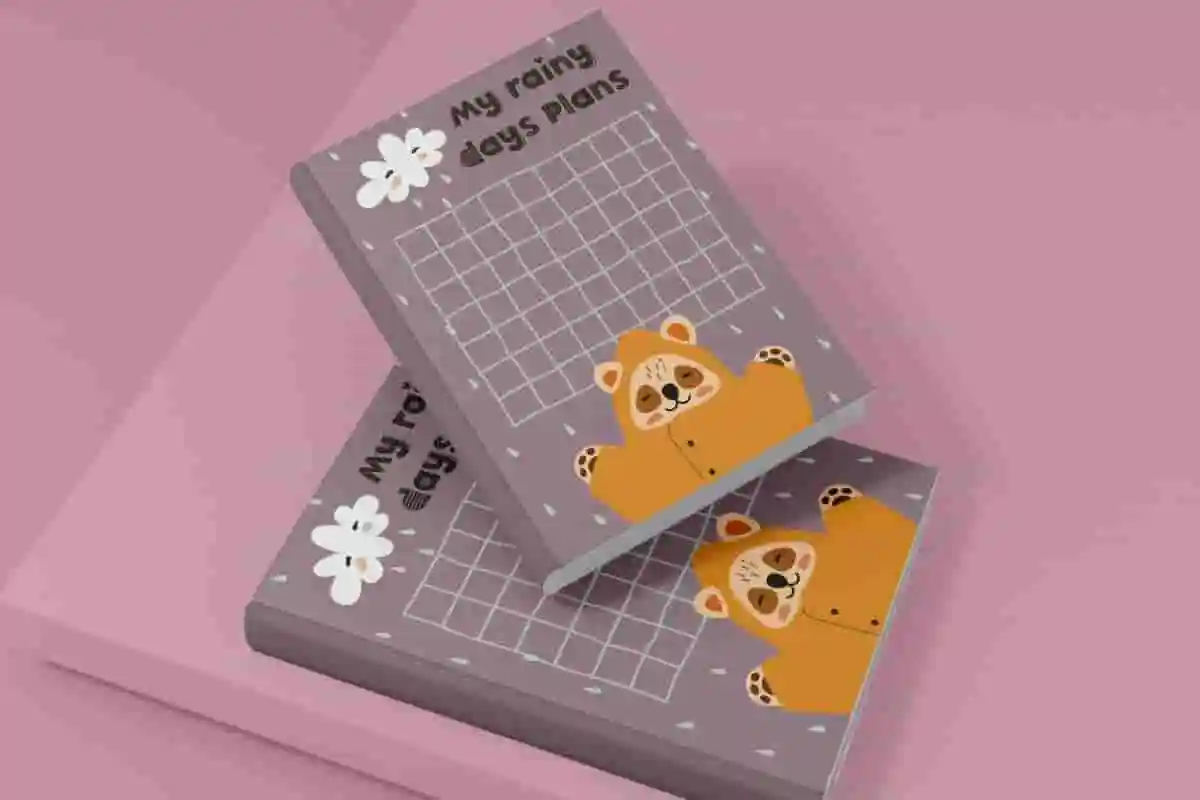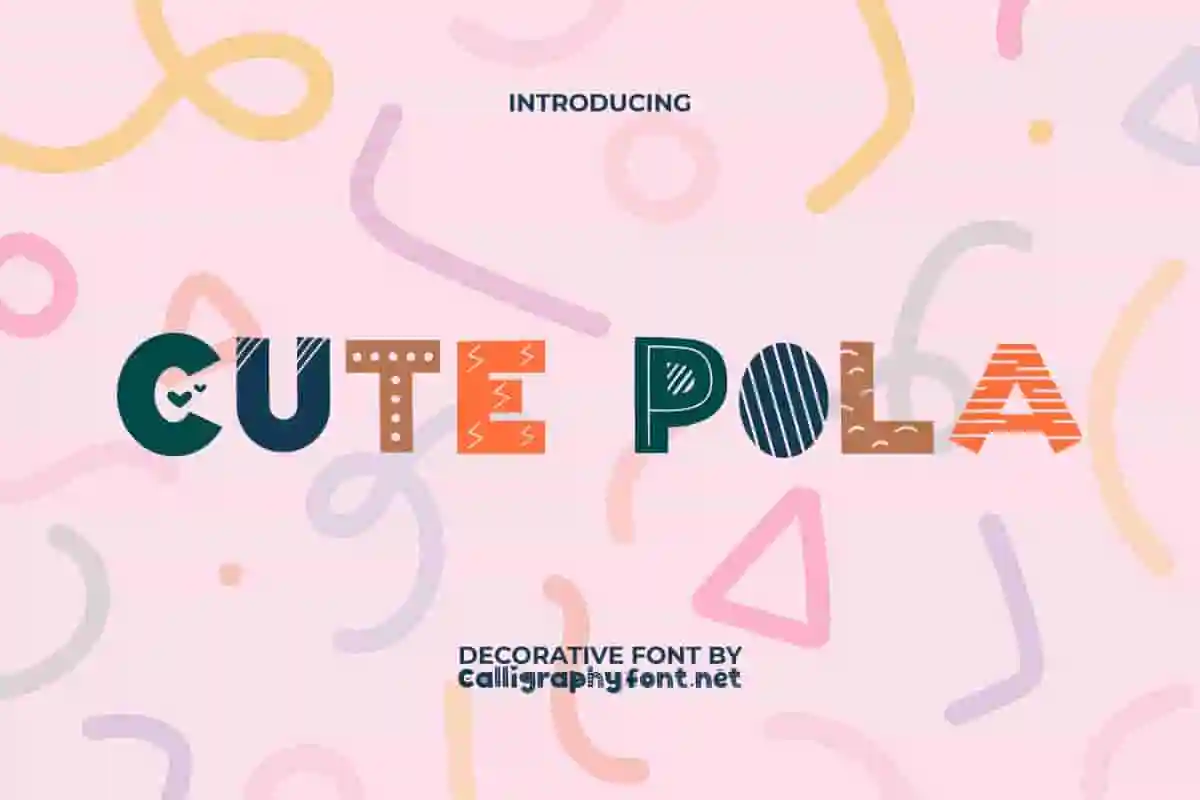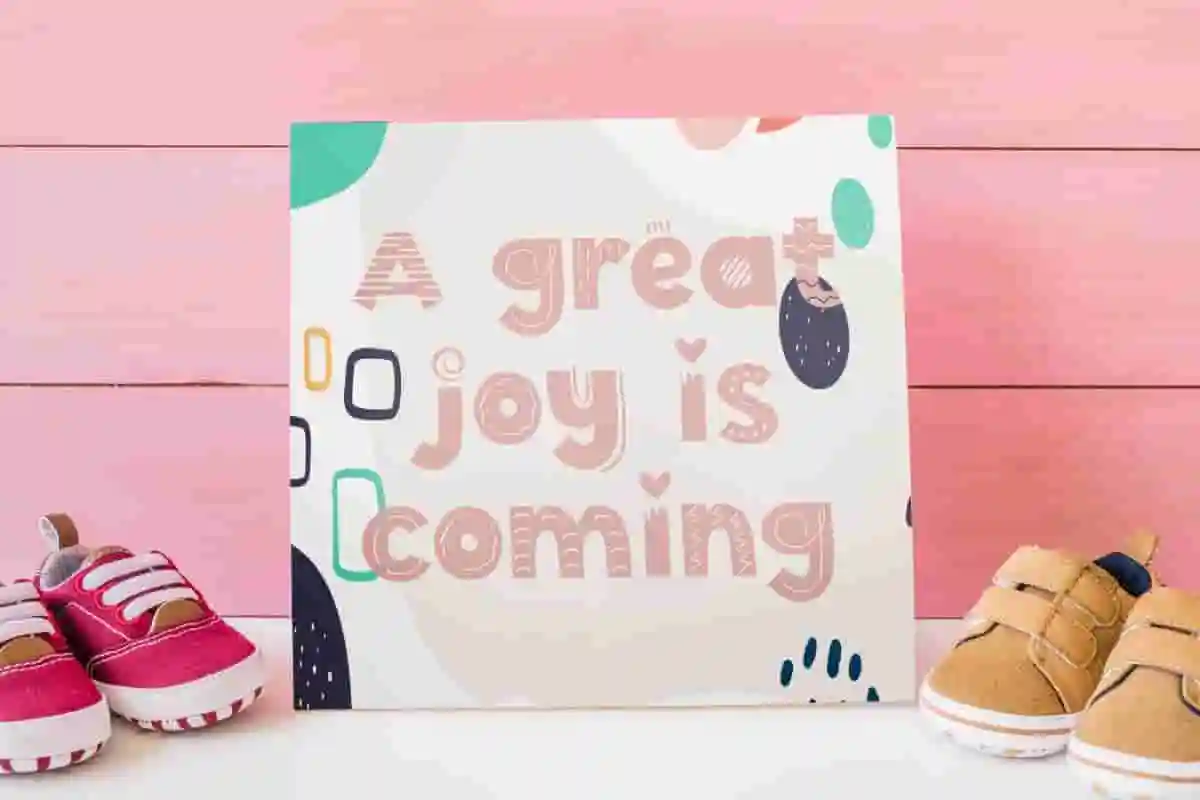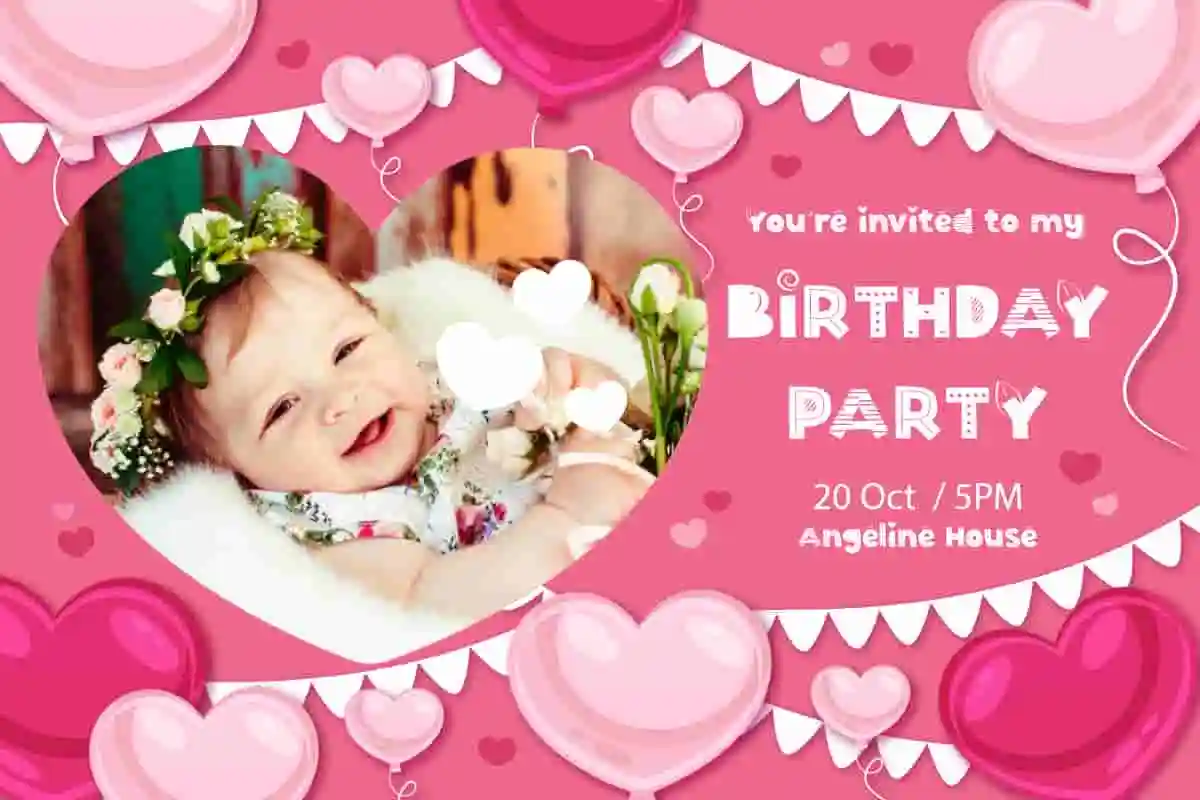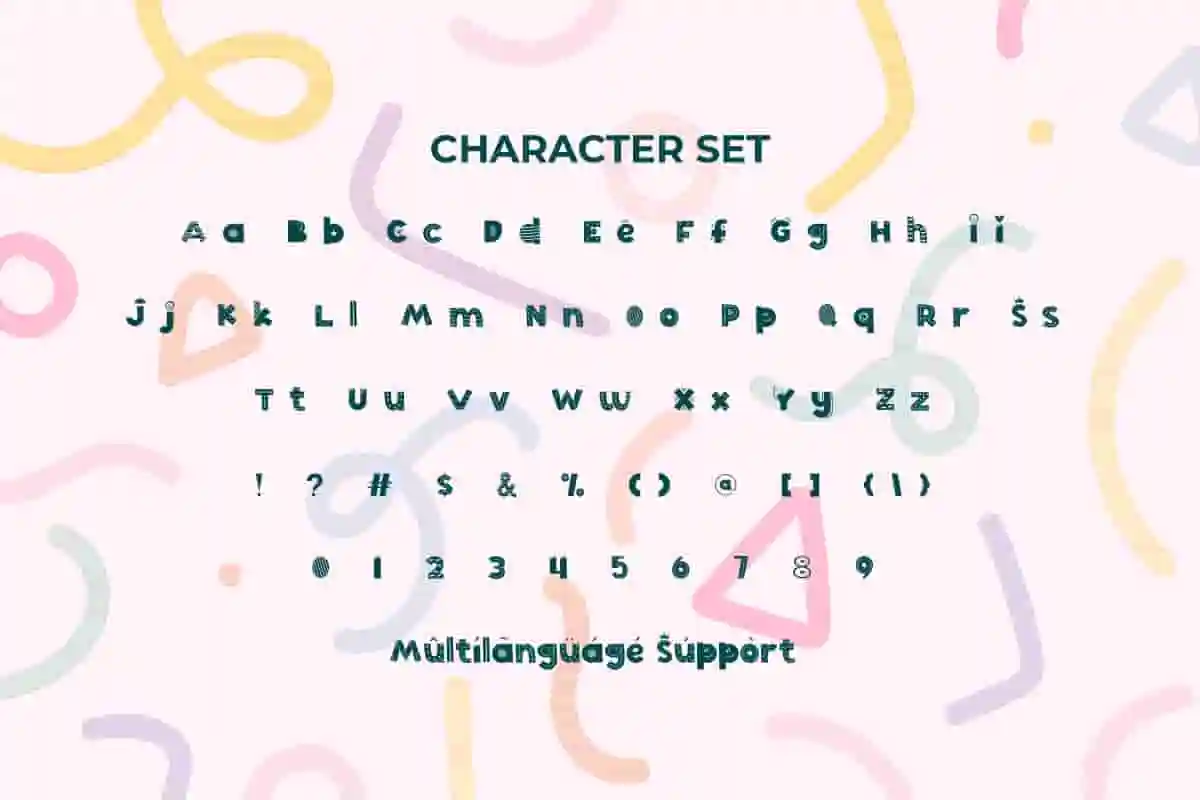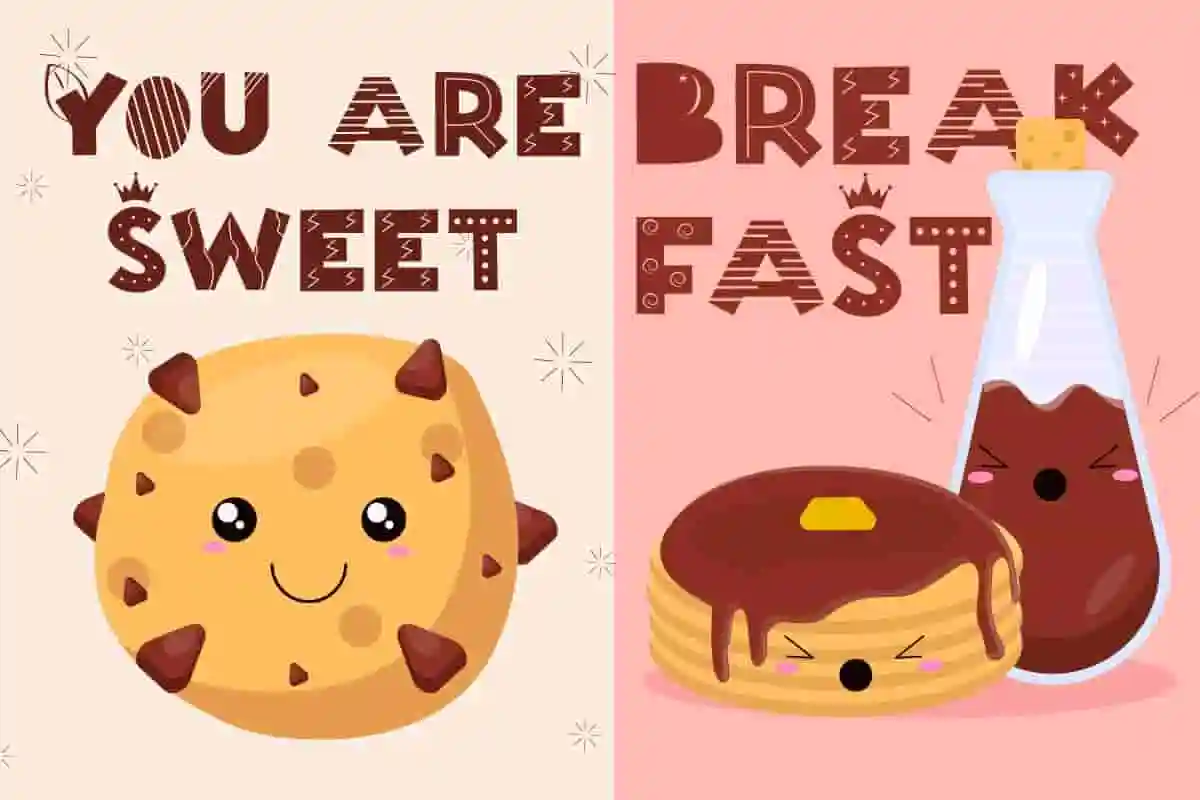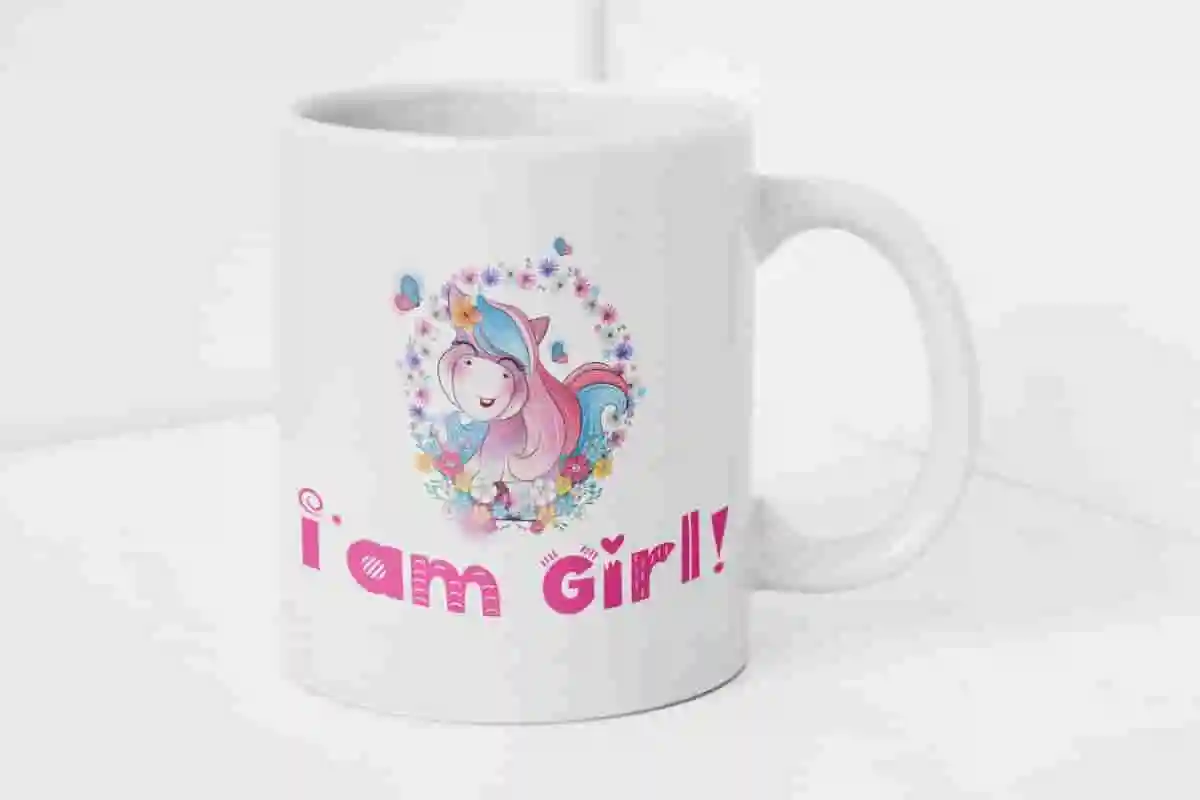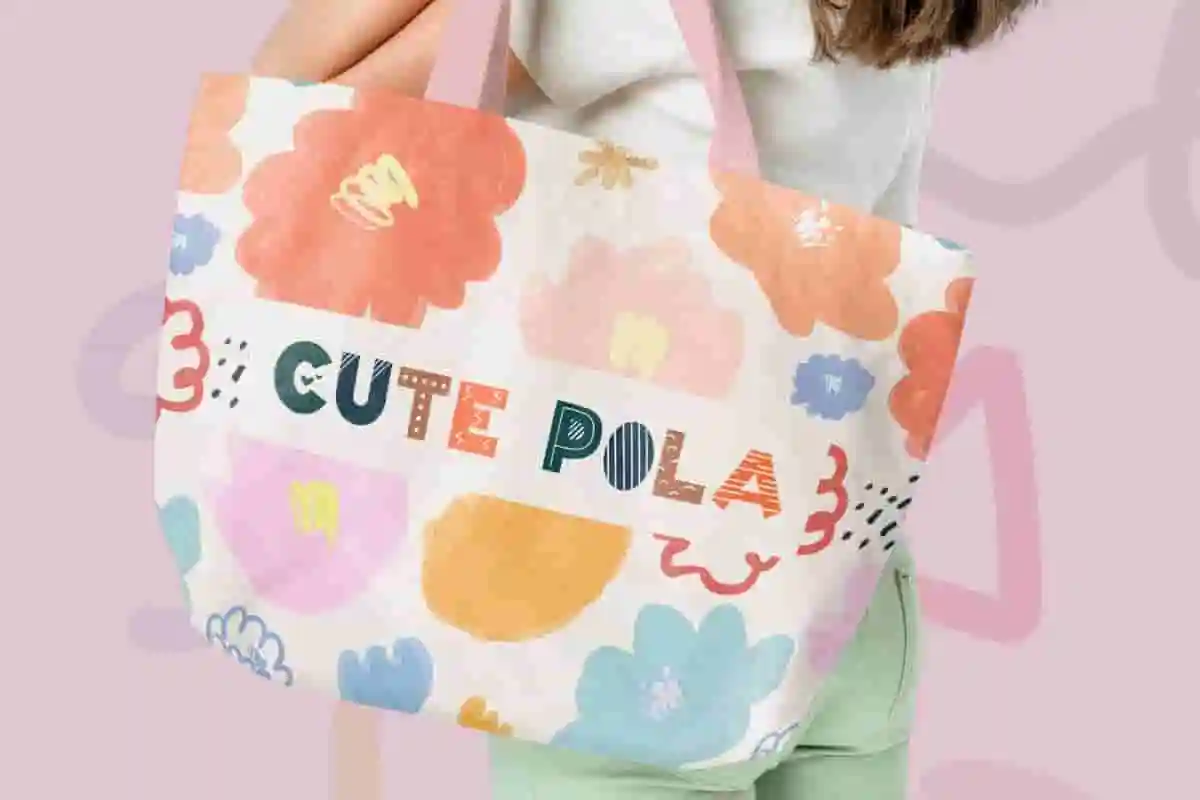
Cute Pola Decorative Font
Cute Pola Font is a cute decorative font with adorable creative shapes. Exclusively created to perfect your design!
Cute Pola Font is a cute decorative font with adorable creative shapes. Each character in this font has a unique and different shape, so you will never get bored of using it in various designs, such as brand image, brochure, card, cover, custom design, flyer, header, invitation, label, packaging, photo card, poster, quote, social media post, sticker, title, website, and anything else that would look adorable with this font!
If you’re looking for a typeface that’s bursting with charm, fun, and creativity, Cute Pola Decorative Font is the perfect choice. This delightful decorative font is designed to add a sense of joy and uniqueness to your projects, making your work stand out instantly. With its quirky curves, playful strokes, and stylish decorative elements, Cute Pola is more than just a font—it’s a design companion that elevates your imagination.
Whether you’re working on children’s books, party invitations, playful logos, product packaging, social media graphics, or greeting cards, Cute Pola will bring your message to life with a cheerful personality. Its versatility makes it suitable for both digital and print use, ensuring your creations always look vibrant and professional.
Cute Pola Decorative Font presenting unique creations in each character form that will stand out in any industry, such as accessories, advertising, bakery, café, comic book, content creator, entertainment, event organizer, fashion, graphic design, handicraft, interior design, kids stuff, movie, printing, publishing, and many more!
Cute Pola Decorative Font comes with a full set of Uppercase and Lowercase Basic Characters, Number, a large range of Punctuation and Symbol. The font has also been equipped with multilingual support that is ready to use either on Windows or Mac machines with a simple installation. It’s tested to work well in the Adobe Apps (Illustrator, Adobe InDesign, Adobe Photoshop) CorelDraw, and others. PUA Encode Characters means you can access all the characters easily – Fully accessible without additional design software.